Transform Your Words with Style: Why Text to Font Tools Are the Future of Online Expression
A smart Font Generator
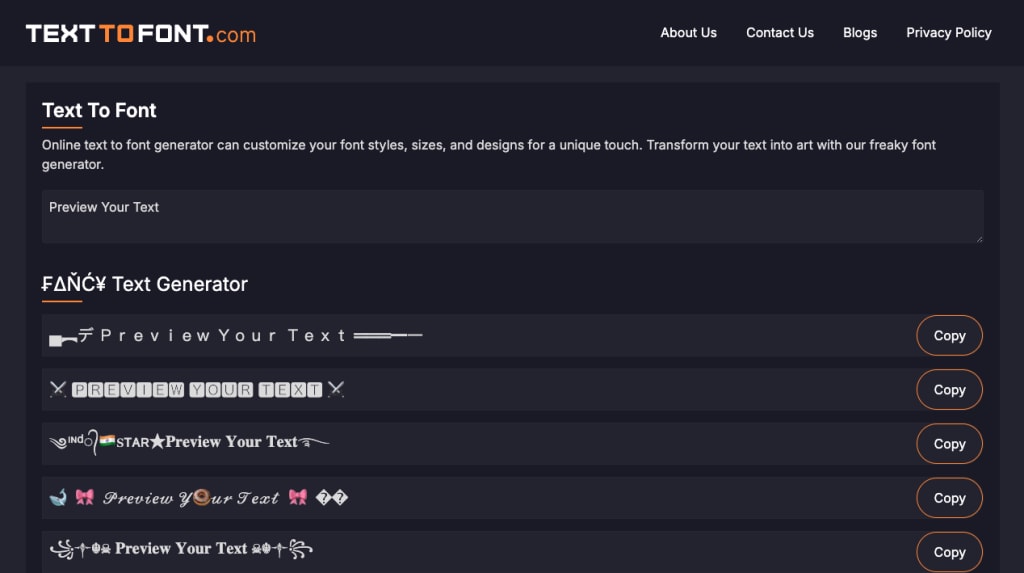
In today's digital world, standing out is everything. Whether you're sharing a funny tweet, designing a social media post, or creating a cool username, your text needs to grab attention. That’s where text to font tools come in — simple, fun, and effective ways to give your words a fresh twist.
At TexttoFont.com, we make it easy for anyone to turn plain text into something amazing. Whether you want sleek and aesthetic letters or something wild and eye-catching like a freaky font, we’ve got you covered.
What Is a Text to Font Converter?
A text to font converter takes regular text and transforms it into styled fonts that you can copy and paste anywhere — no downloads, no fancy software. Just type your message, choose a font style, and voilà! You’ve got something that looks unique and stands out on platforms like Instagram, TikTok, Discord, or even in your bio.
Why Freaky Fonts Are Trending in 2025
Let’s face it — normal is boring. People want their online presence to reflect their vibe, and freaky fonts are perfect for that. Glitched-out letters, upside-down text, spooky symbols — these unusual styles are all over social media in 2025. They’re bold, creative, and sometimes just plain weird — in the best way.
At TexttoFont.com, our freaky font generator lets you create weird and wonderful text styles that instantly catch the eye. It's a favorite for gamers, influencers, and anyone who wants to add an edge to their online identity.
Where to Use These Fonts
Text to font converters aren’t just for fun — they’re super versatile too. Here are a few ideas:
Social Media: Make your captions, bios, and comments pop.
Usernames: Create a cool, custom name for gaming or online profiles.
Messaging Apps: Send texts that surprise your friends.
Content Creators: Add flair to thumbnails, video titles, and intros.
Blog Titles & Design: Make headlines that draw clicks.
🎨 Tons of Font Styles: From elegant to freaky — something for every vibe
Final Thoughts
Whether you’re looking to add some flavor to your Instagram bio or just want to freak out your friends with a weird new font, text to font tools like the ones at TexttoFont.com are your secret weapon. Explore our collection, play around with freaky fonts, and let your words speak louder — and cooler — than ever before.